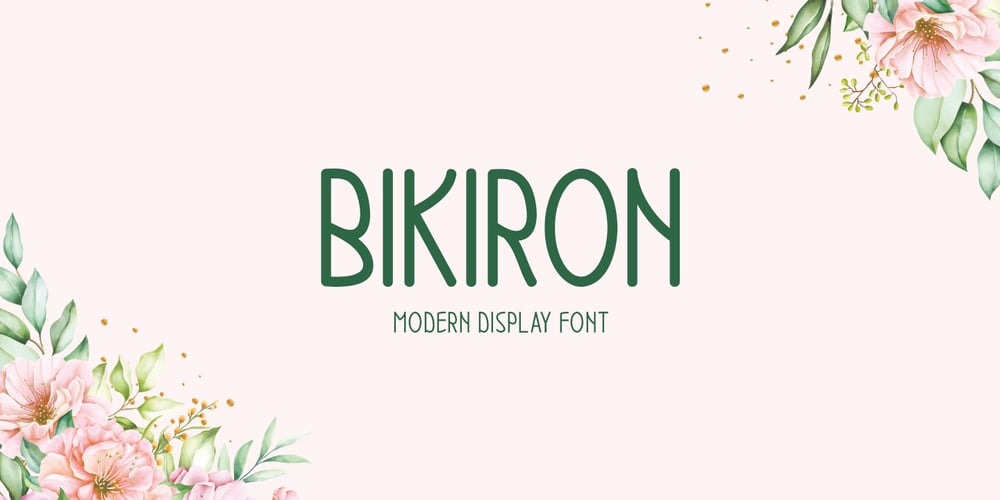
Bikiron Font Family was designed by Md Shohail Bhuian and published by Seemly Fonts. Bikiron contains 1 styles and family package options. Discover Bikiron, the newest addition to your design toolkit. With its handcrafted charm, this font is ideal for logos, flyers, and everything in between. Elevate your stationery, website headers, and print designs with Bikiron’s playful yet elegant style. Perfect for any project, big or small, this font is sure to make a statement.